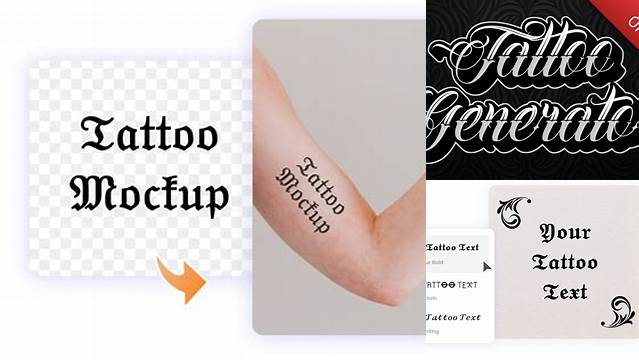
Tattoo Font Generator: Copy And Paste Designs Free
Hey guys! Ever wanted to try out different tattoo fonts without actually getting inked? Or maybe you're an artist looking for inspiration and a quick way to visualize designs? Well, you've come to the right place! This guide is all about free tattoo font generators that let you copy and paste your ideas into reality (well, virtually, at least!). We'll dive into the awesome world of tattoo fonts, where you can find the perfect style to match your personality and design. So, let's get started!
1. Exploring Free Online Tattoo Font Generators
So, you’re diving into the world of free tattoo font generators? Awesome! These online tools are like magic wands for tattoo enthusiasts and artists alike. You can literally type in your desired text, play around with a zillion different fonts, and boom – instant tattoo design inspiration! The beauty of these generators is their accessibility. No need to download any complicated software or spend hours learning design programs. Most of them are super user-friendly, with a simple interface that lets you experiment with fonts, sizes, and even colors. Plus, they’re free! That means you can try out as many fonts as your heart desires without spending a dime. Whether you’re looking for a classic script font, a bold tribal design, or something totally unique, these generators have got you covered. Think of them as your personal playground for tattoo typography. You can preview how your chosen words or phrases will look on skin, which is a huge advantage before you even step into a tattoo studio. And the best part? You can copy and paste your finalized design or individual letters for further editing or to share with your tattoo artist. This makes the whole process of finding the perfect font so much smoother and more efficient. Seriously, if you're even remotely considering a tattoo, these free online generators are your new best friend.
2. Benefits of Using a Tattoo Font Generator for Copy and Paste
Okay, let's talk benefits, guys! Why should you even bother with a tattoo font generator copy and paste tool? Well, for starters, it’s a massive time-saver. Imagine manually searching through endless font styles – no thanks! These generators put everything at your fingertips in one convenient spot. But it's not just about speed; it's about visualization. You can see exactly how your text will look in different fonts before committing to anything. This is crucial because the font can completely change the vibe of your tattoo. A delicate script can convey elegance, while a bold gothic font screams intensity. Using a generator lets you experiment with these different moods and find the perfect match for your personality and design. Another huge perk is the ability to copy and paste. This might seem like a small thing, but it's actually super useful. You can easily transfer your chosen font into other design programs for further customization, or simply send it to your tattoo artist for reference. It eliminates the hassle of trying to describe a font or find it again later. Plus, let's be honest, it's just plain fun! You can play around with different words, phrases, and fonts, creating endless possibilities. It's a great way to spark your creativity and discover fonts you might never have considered otherwise. So, if you're looking for a hassle-free, visually rich, and downright enjoyable way to explore tattoo fonts, a generator is definitely the way to go.
3. Finding the Perfect Tattoo Font Style
Finding the perfect tattoo font style is like finding the perfect pair of shoes – it's gotta fit just right! And when it comes to tattoos, the font is a huge part of the overall design. It's not just about the words themselves; it's about how they look, how they feel, and how they convey your message. That’s where a free tattoo font generator comes to the rescue, offering a playground of styles to explore. Do you want something classic and timeless? Think about script fonts, which evoke elegance and sophistication. Or maybe you're leaning towards something bold and edgy? In that case, a gothic or blackletter font might be more your style. For a modern and minimalist look, consider sans-serif fonts, which are clean and simple. And let’s not forget about tribal fonts, which are perfect for adding a touch of history and culture to your ink. But it's not just about the style itself; it's also about how it complements your design. The font should enhance the overall message and visual appeal of your tattoo. Think about the size, placement, and spacing of the letters. A delicate font might get lost in a large, intricate design, while a bold font might overpower a small, simple one. That's why experimenting with different fonts and sizes is crucial. And remember, with a tattoo font generator copy and paste is a breeze, so you can easily try out different options until you find the one that speaks to you. So, take your time, have fun, and find that perfect font that makes your tattoo truly yours.
4. How to Copy and Paste Fonts from a Generator
Okay, so you've found the perfect font using a free tattoo font generator, now what? Time to unleash the power of copy and paste! This is where things get super practical. Most generators make this process incredibly simple. Typically, you'll see an option to either directly copy the text in your chosen font or download the font itself. If you're planning on using the font in other design software, downloading it might be the way to go. But for quick use and sharing, the direct copy and paste option is your best friend. Simply select the text displayed in the generator, right-click, and choose "copy." Then, you can paste it into any text field – an email, a document, or even directly into a message to your tattoo artist! It's that easy. Some generators might even offer different formats for copying, such as an image file. This can be useful if you want to preserve the exact look of the font, including any special effects or styling. Just keep in mind that an image file won't be editable as text, so you'll need to stick with the text-based copy and paste for most applications. And here's a pro tip: Always double-check the pasted text to make sure it looks exactly as it did in the generator. Sometimes, formatting can get a little wonky when you copy and paste across different platforms. But with a little attention to detail, you'll be rocking your perfect tattoo font in no time!
5. Using Tattoo Fonts in Different Design Software
So, you've generated your awesome tattoo font and copy and paste it – fantastic! But what if you want to take things a step further and incorporate it into a more complex design? That's where design software comes in handy. Whether you're a seasoned pro or just starting out, there are tons of programs that can help you bring your tattoo vision to life. Think Photoshop, Illustrator, Procreate – the possibilities are endless! The key is to choose software that suits your skill level and your design goals. If you're new to design, user-friendly options like Canva or even online editors can be a great starting point. They often have pre-made templates and drag-and-drop features that make it easy to create visually appealing designs. For more advanced users, programs like Photoshop and Illustrator offer a wider range of tools and features, allowing for greater customization and control. Once you've chosen your software, importing your tattoo font copy and paste text is usually a breeze. Simply paste the text into a text box within the program and adjust the size, color, and placement as needed. You can then add other design elements, such as images, shapes, and effects, to create a truly unique tattoo design. And don't be afraid to experiment! The beauty of design software is that it allows you to try out different ideas without any permanent commitment. So, play around with different fonts, layouts, and styles until you find something that you absolutely love. And remember, your tattoo is a reflection of you, so make sure your design truly represents your personality and style.
6. Tips for Choosing the Right Font Size for Your Tattoo
Font size – it's a bigger deal than you might think when it comes to tattoos! Choosing the right size is crucial for ensuring your tattoo looks amazing and remains legible for years to come. A free tattoo font generator can help you visualize different sizes, but here are a few extra tips to keep in mind. First off, consider the placement of your tattoo. A smaller font might work well on a delicate area like your wrist or ankle, while a larger font is better suited for broader areas like your back or chest. Think about the overall design, too. If your tattoo includes intricate details or shading, a smaller font might get lost in the mix. On the other hand, a large, bold font could overwhelm a simple design. Legibility is key, guys! You want to make sure your tattoo is easily readable, even from a distance. A font that's too small might look blurry or fade over time, especially if it has thin lines or intricate details. So, err on the side of caution and go a bit bigger than you think you need. You can always adjust the size later if needed. And here's a pro tip: print out your design in different sizes and tape it to your body in the intended location. This will give you a much better idea of how the tattoo will actually look in real life. Remember, copy and paste your chosen font into a document and print it out – it's a simple but effective way to test the size. Choosing the right font size is all about balance and proportion. It's about creating a tattoo that looks both beautiful and legible, now and in the future.
7. Understanding Tattoo Font Licensing and Usage
Okay, let's talk about something that might seem a little dry but is super important: tattoo font licensing and usage. You might be thinking, "Wait, I just want a cool font for my tattoo, why do I need to know about licensing?" Well, guys, it's all about respecting the rights of the font creators. Just like music and art, fonts are intellectual property, and they're protected by copyright. Most free tattoo font generators offer fonts that are free for personal use, which means you can use them for your own tattoo design without any issues. However, if you're a tattoo artist or designer using fonts commercially (e.g., creating designs for clients), you need to pay closer attention to the licensing terms. Some fonts might require a commercial license for business use. This is where it gets a bit tricky, so always double-check the license agreement for the specific font you're using. You can usually find this information on the font creator's website or in the font files themselves. Pay attention to terms like "personal use only," "commercial use allowed," and "attribution required." If a font requires attribution, it means you need to give credit to the font creator when you use it. This can be as simple as including their name in your design credits or on your website. And if you're unsure about the licensing terms, it's always best to err on the side of caution and contact the font creator directly. They'll be able to clarify any questions you have. Remember, using a tattoo font copy and paste from a generator is convenient, but it's your responsibility to make sure you're doing it legally and ethically. So, do your research, read the fine print, and respect the creators who make these awesome fonts possible!
8. Mixing and Matching Different Tattoo Fonts
Feeling adventurous? Ready to take your tattoo design to the next level? Then let's talk about mixing and matching different tattoo fonts! This can be a fantastic way to create a unique and eye-catching design, but it's also something that requires a bit of finesse. You can't just throw a bunch of random fonts together and expect it to look good. There needs to be a sense of harmony and balance. A free tattoo font generator is your playground for experimentation here. Think of it like choosing the right ingredients for a recipe – some flavors complement each other, while others clash. The same goes for fonts. A classic script font might pair beautifully with a bold sans-serif, creating a contrast between elegance and modernity. Or you could combine a gothic font with a delicate hand-lettered style for a touch of drama and whimsy. The key is to choose fonts that have a clear relationship, whether it's through their style, weight, or overall feel. Avoid using fonts that are too similar, as this can create a cluttered and confusing look. And don't go overboard – sticking to two or three fonts is usually the safest bet. Think about hierarchy, too. Use one font for the main text or focal point of your design and another font for supporting elements or smaller details. This helps to create visual interest and guide the eye. Copy and paste different font combinations into a design program and play around with the layout and spacing. See what works and what doesn't. And don't be afraid to break the rules and try something unexpected! Mixing and matching fonts is all about expressing your creativity and personal style. So, have fun with it and create a tattoo that's truly one-of-a-kind.
10. The Importance of Legibility in Tattoo Fonts
Let's get real for a second, guys: legibility is everything when it comes to tattoo fonts! You can have the most beautiful, intricate design in the world, but if it's not readable, what's the point? Your tattoo is a statement, a piece of art on your body, and you want people to be able to understand and appreciate it. That's why choosing a legible font is so crucial. A free tattoo font generator can show you a ton of styles, but you need to think practically. Think about how the font will look over time. Will those delicate lines blur together as the ink settles? Will that super fancy script be readable from a distance? Bold, clean fonts tend to hold up better over time than thin, intricate ones. Consider the placement of your tattoo, too. A font that looks great on a flat surface like your back might not be as legible on a curved area like your wrist or ankle. The size of your tattoo also plays a role. A smaller tattoo needs a simpler, more legible font than a larger one. And don't forget about the overall design! Your font should complement the other elements of your tattoo, not compete with them. If you have a lot of intricate details in your design, a simple, clean font might be the best choice. Copy and paste your chosen font into different contexts – try viewing it from a distance, in different lighting, and even upside down. This will help you get a better sense of its legibility in real-world situations. Ultimately, the goal is to create a tattoo that looks amazing and is easily readable for years to come. So, prioritize legibility when choosing your font, and you'll be sure to end up with a tattoo that you'll love for a lifetime.